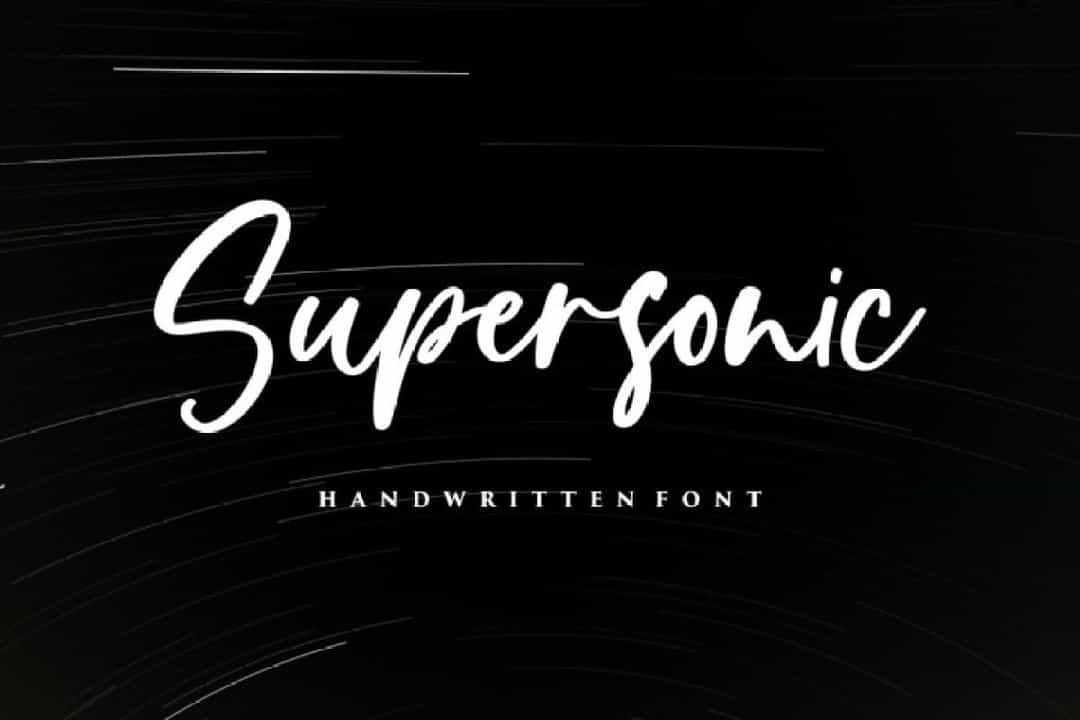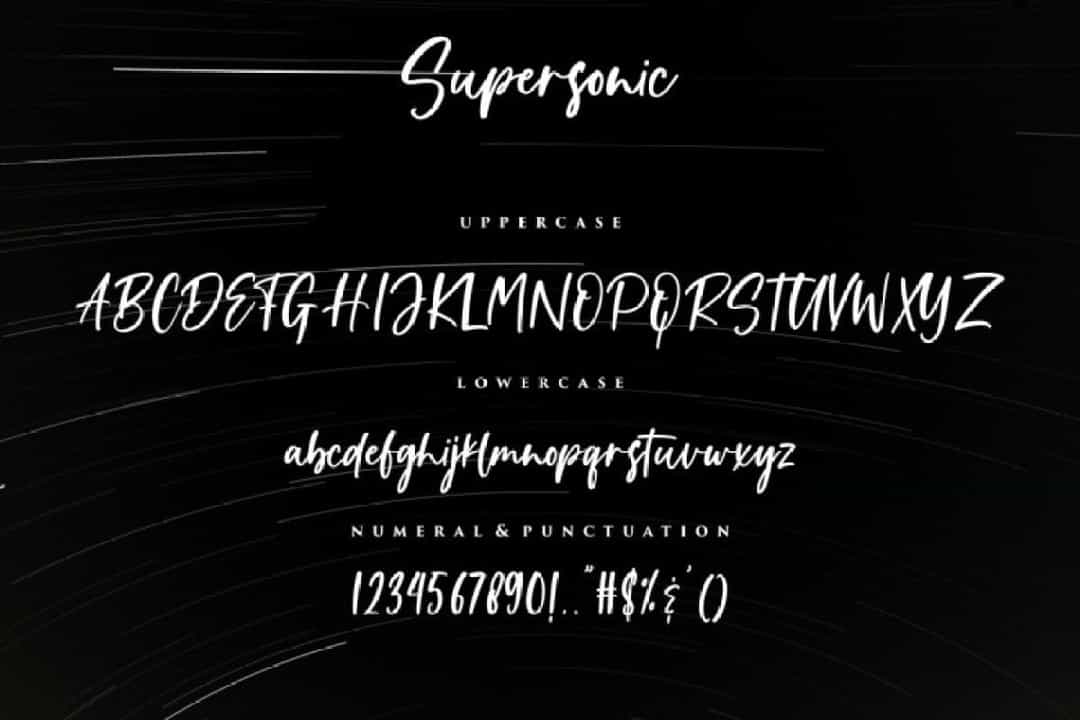
Supersonic is a handwritten organic font with an organic look as well as modern touch, with nice start and end strokes. It is refined and unpretentious at the same time, whereby this font can be used for a variety of purposes; logo, branding, titling for social media posts, ads, packaging for products, labels, photographs, watermarks, special occasion magazines, and websites, etc.